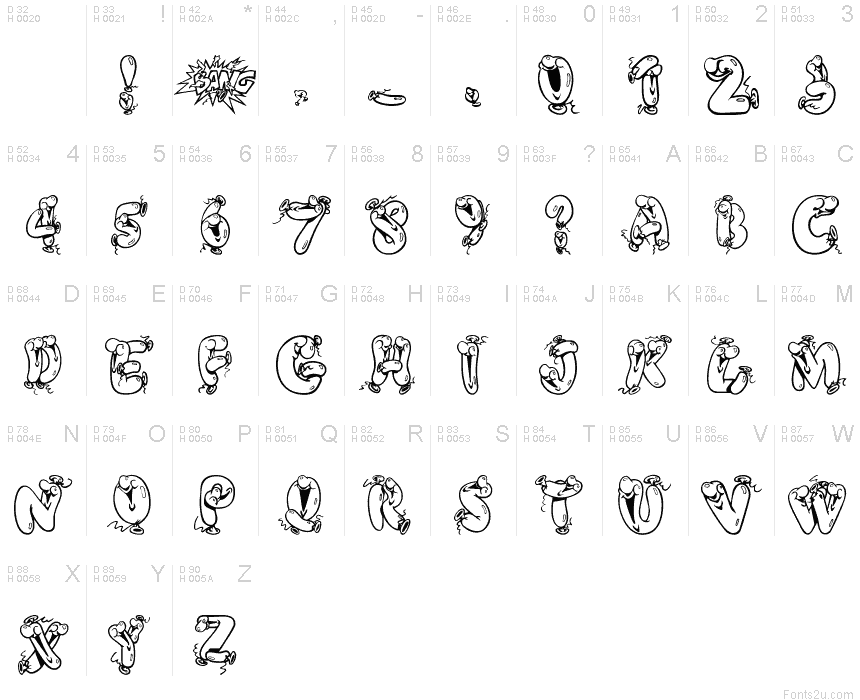
AlphaBalloons2 by TheFontGodde of Beeline is a free cartoon dingbat font built from lively character illustrations. Rounded, inflated shapes meet loose inked outlines, with bent limbs, expressive faces, and small motion marks giving each figure a hand-drawn comic quality. The uneven contours make the artwork feel cheerfully homemade.
It can turn a party invitation into an illustrated gag. That playful balloon motif also suits children's activity sheets, birthday decorations, and novelty merchandise, where the symbols can mingle with confetti, streamers, and other celebratory drawings.